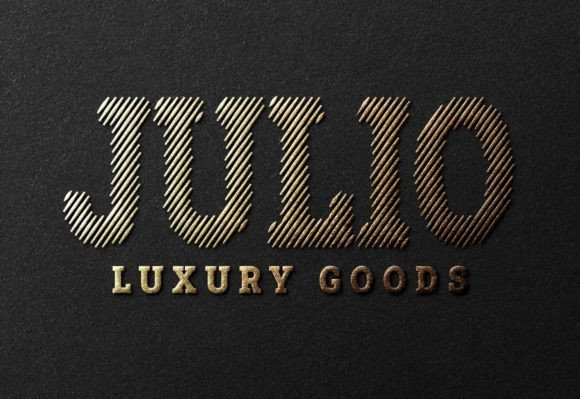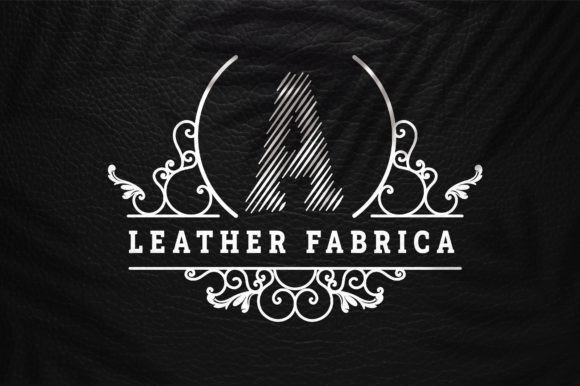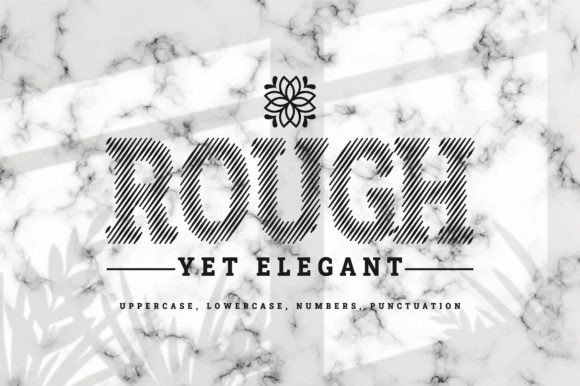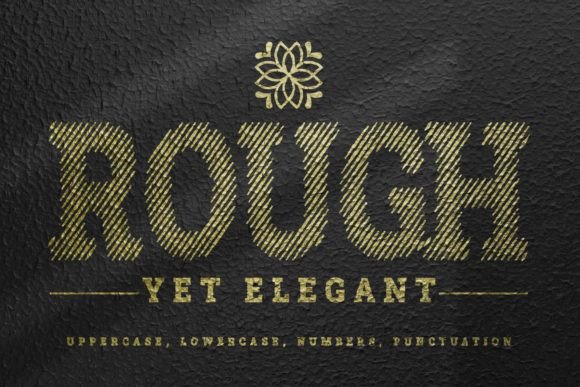
Tapper Font
TAPPER FONT SPECIMEN
Tapper is a slab serif typeface designed to give rough tapered lines yet a luxurious look to your creations. It is the perfect choice when it comes to elegant logo designs, big headings, titles, or anything that needs an equally elegant and rough touch.